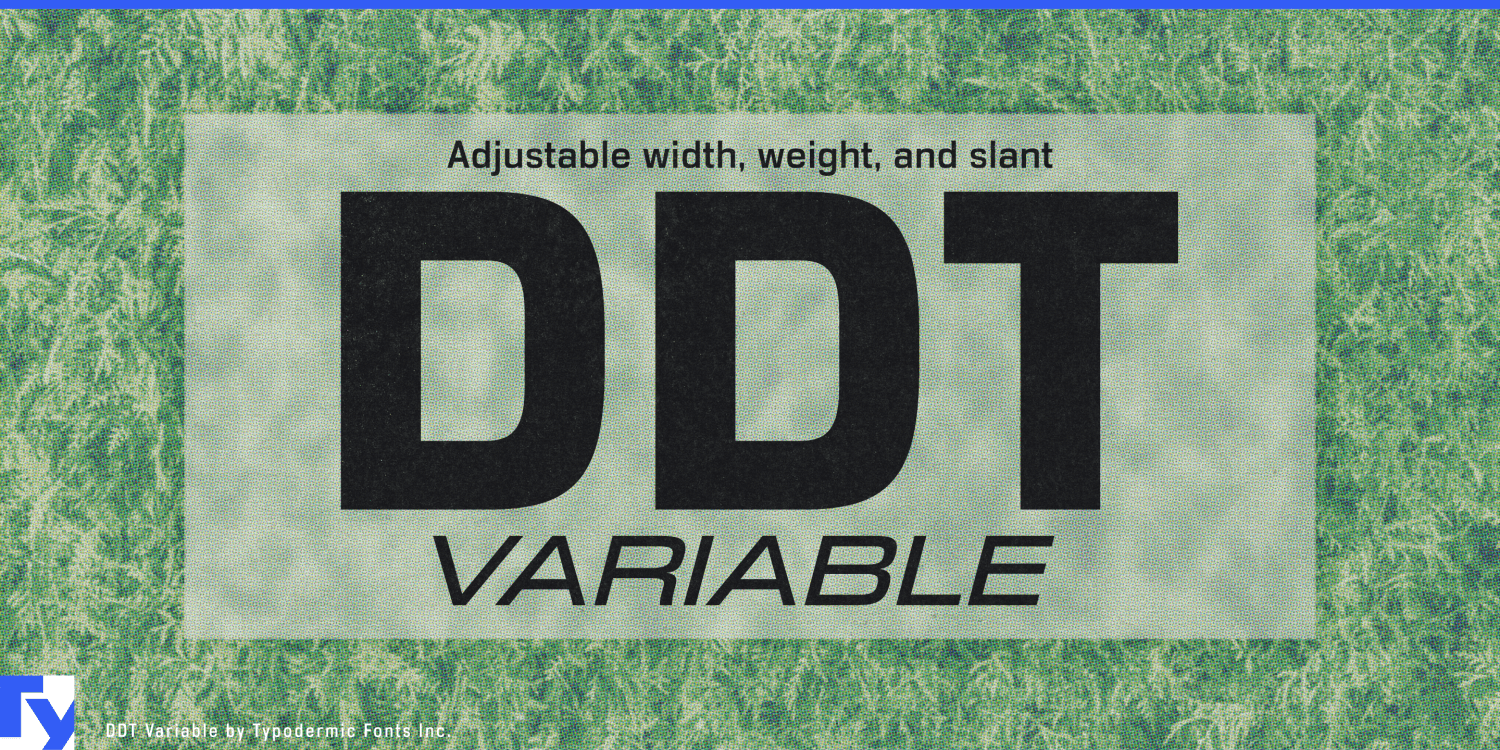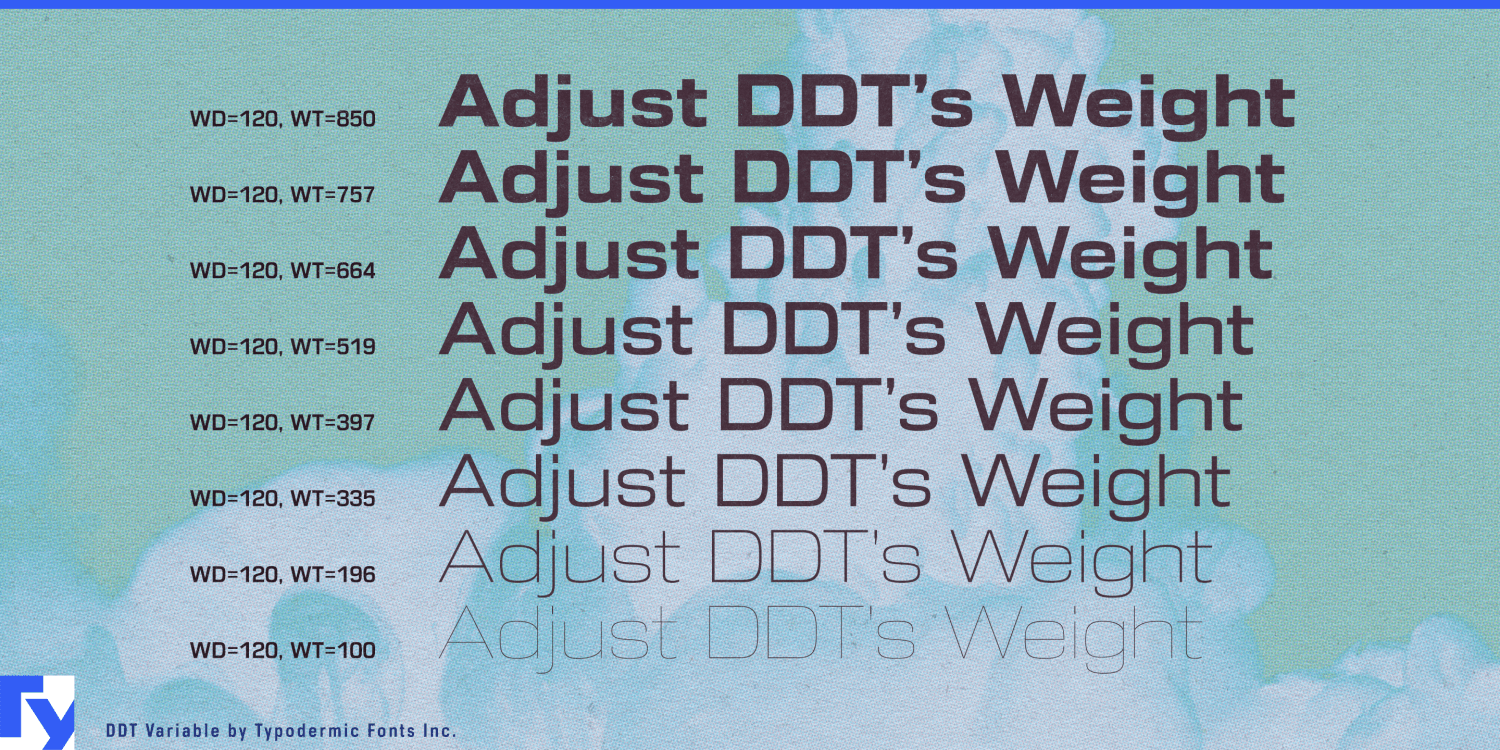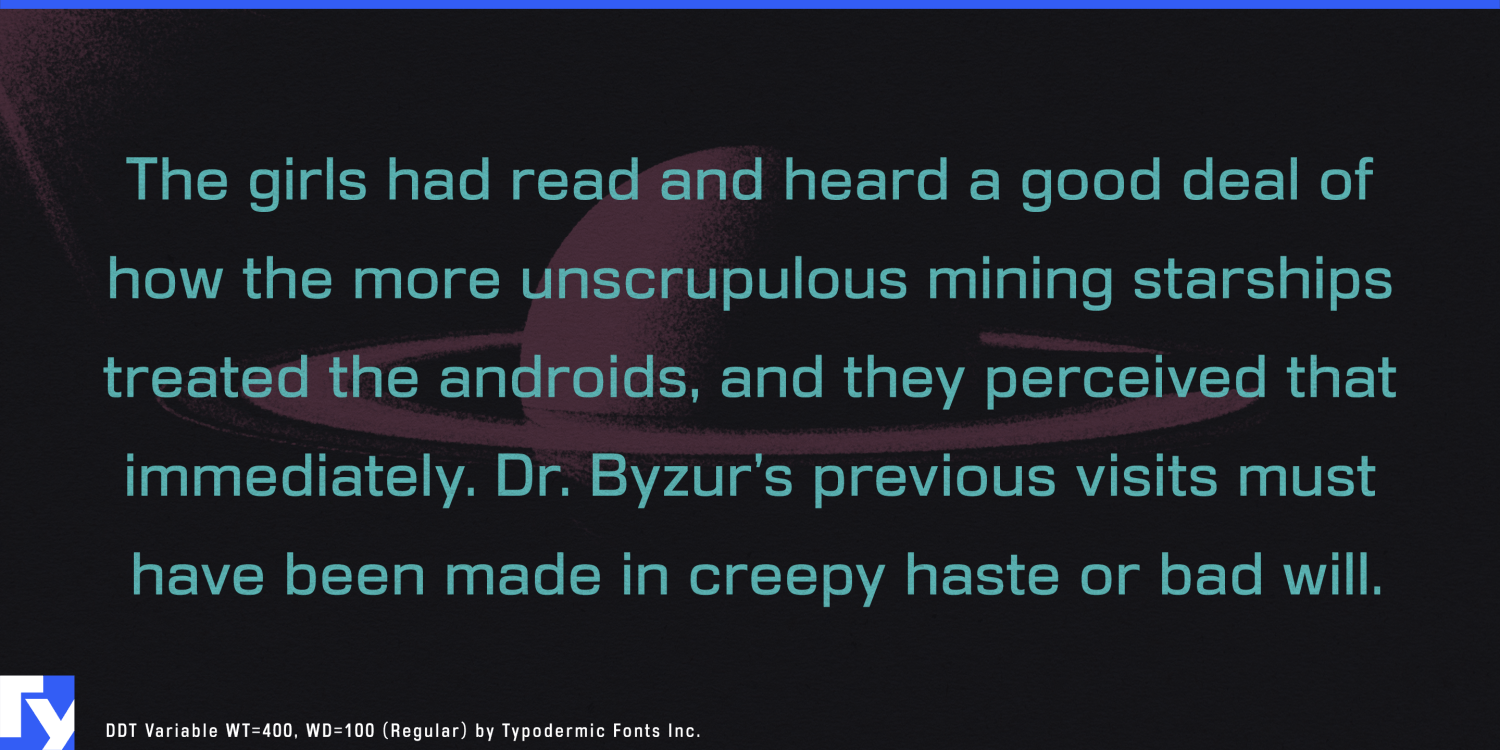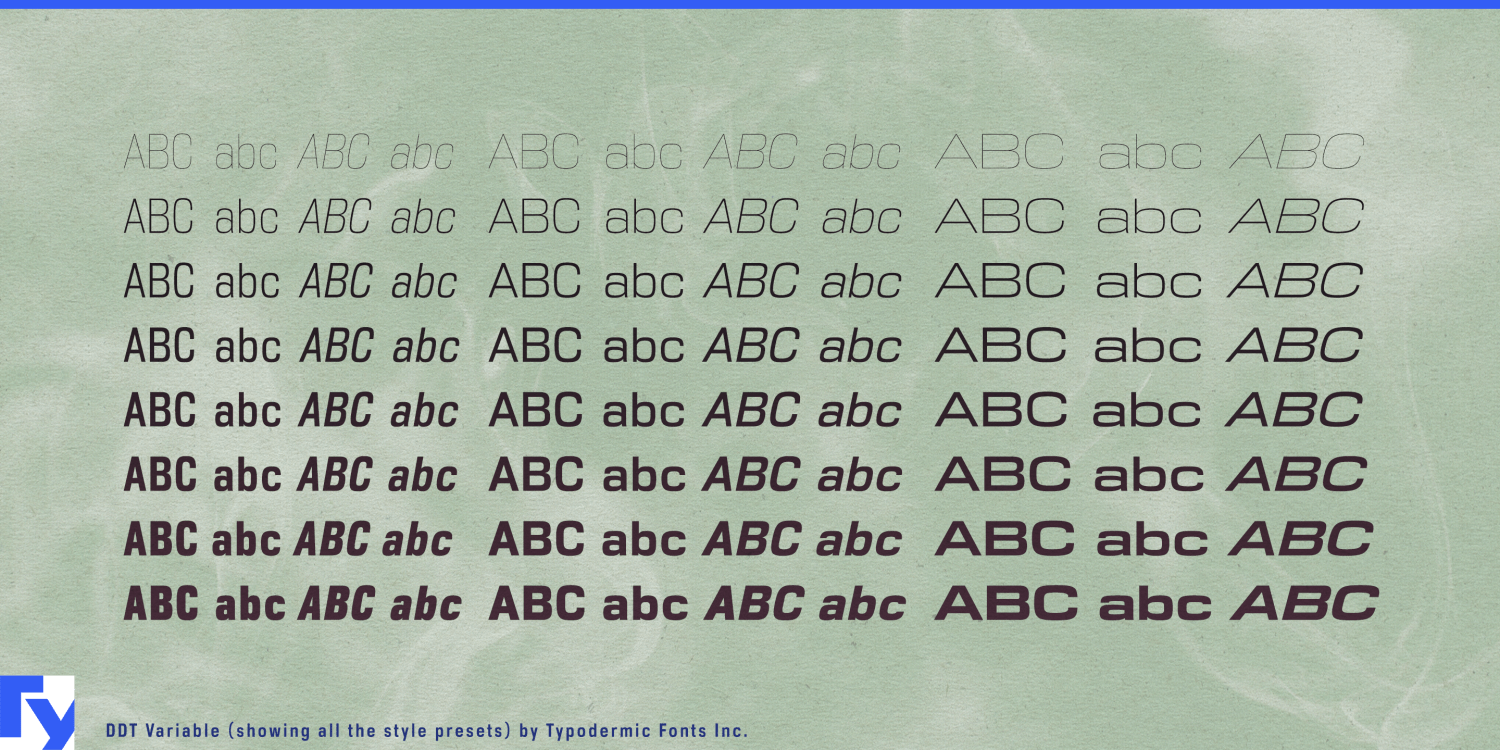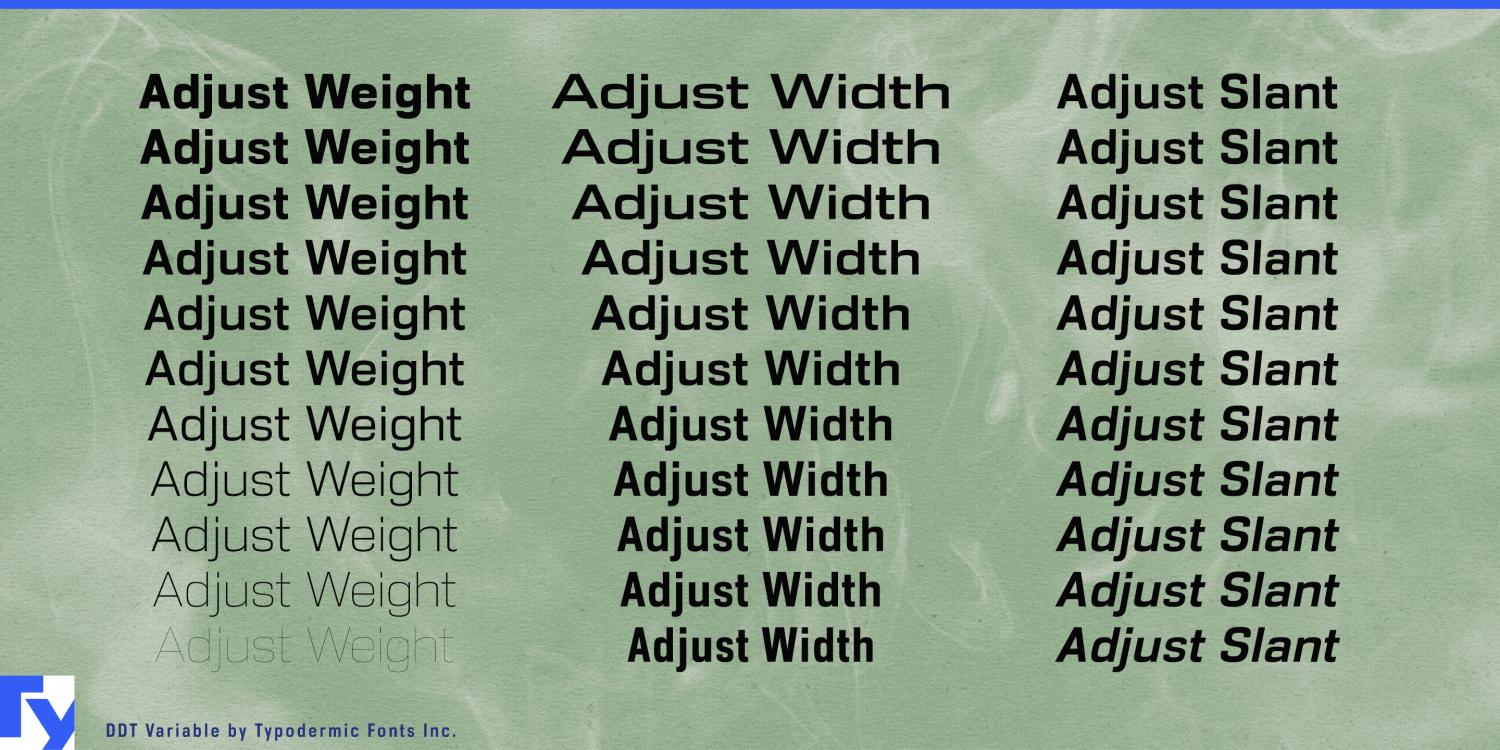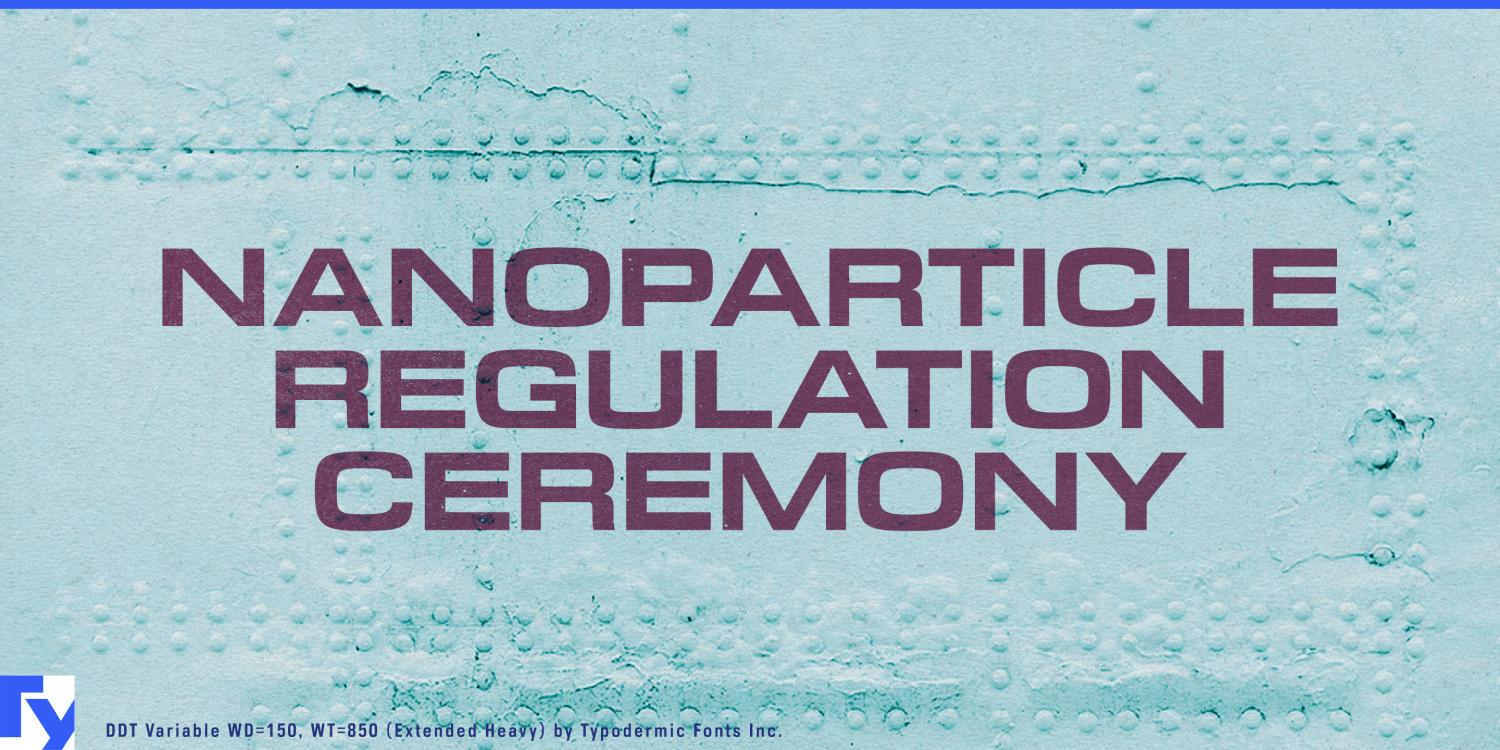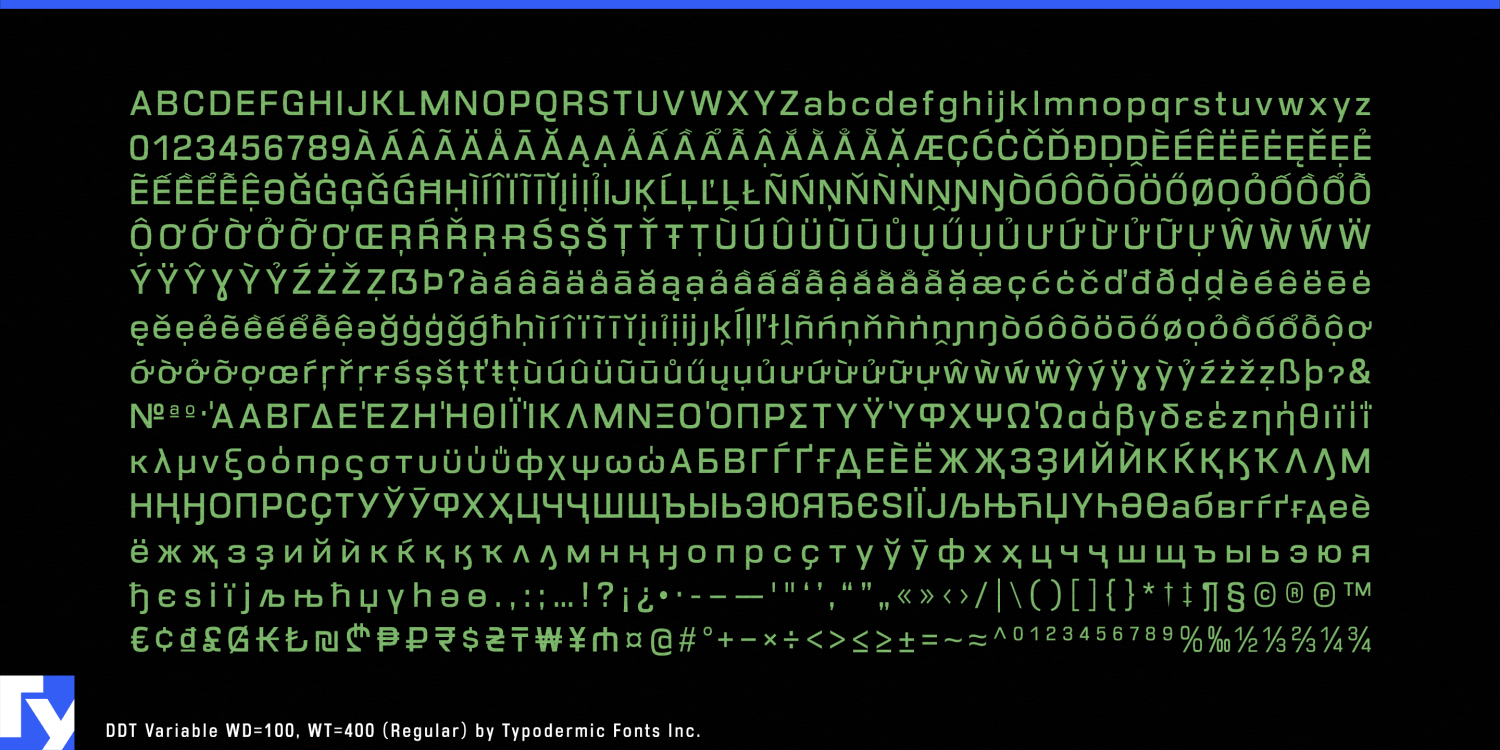
DDT Variable
Font Family by Typodermic
DDT Variable is a precision-engineered sans-serif typeface designed to adapt to your vision without compromise. Built on the same foundation of clarity and authority that made its static sibling a workhorse, this version adds the full flexibility of variable font technology. Its subtly superelliptical geometry—striking a perfect balance between the precision of Univers and the industrial poise of Eurostile—retains a scientific calm at any weight, width, or slant.
With three continuous axes—weight, width, and slant—DDT Variable gives you fine-grained control over typography. Need something between Medium and Semibold, or a width narrower than Regular but roomier than Condensed? You can dial it in exactly, without switching files or breaking consistency. This fluid control doesn’t just expand creative range—it speeds up your workflow, ensuring precise, unified typography across print, web, and interface design.
DDT Variable is as capable as it is flexible. Its numeric system includes monospaced lining figures for perfect alignment, proportional lining figures for display work, and proportional old-style figures for text—plus fractions and ordinals for technical or editorial detail. Whether you’re working on an app interface, a data-heavy dashboard, or a brand identity, it has the range to meet your needs.
With extensive language coverage—including Latin-based European scripts, Vietnamese, Greek, and most Cyrillic alphabets—DDT Variable is ready to work across markets and disciplines.
In a single, efficient file, you hold an entire spectrum of styles. That means less time managing fonts and more time designing with them. DDT Variable is not just a font; it’s a design environment—built for the demands of today, ready for the changes of tomorrow.